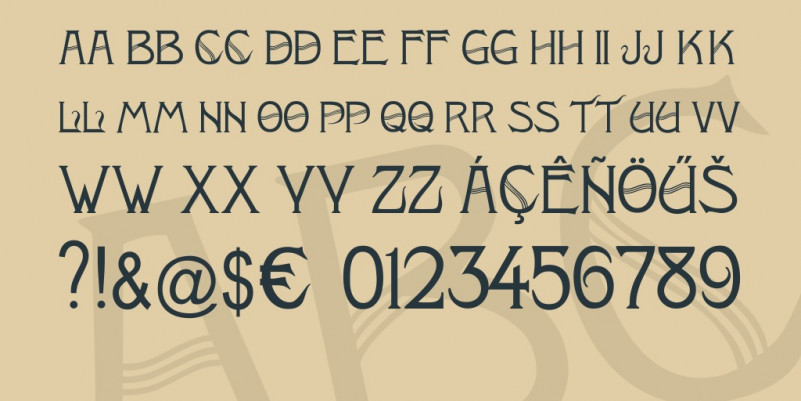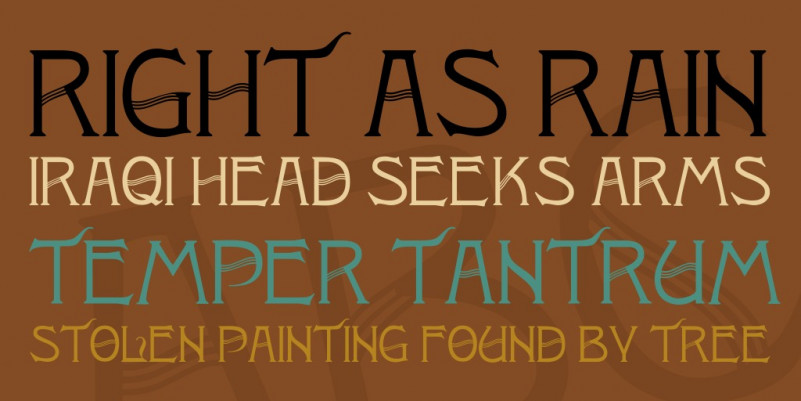
Skandal Font
Skandal Vintage Font is a decorative Art Noveau typeface with elegant elements and fancy curls. The font has extended language support, including Cyrillic.
Skandal font is perfect for vintage designs, posters, wedding decorations and other artworks.